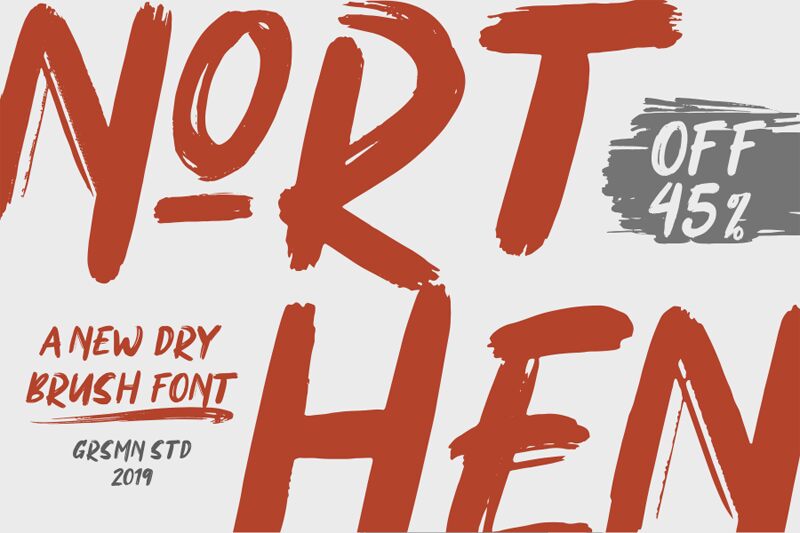
Northen is a dynamic, brush-style font that exudes a sense of energy and fluidity. Crafted by designer Risman Ginarwan, this typeface boasts a captivating interplay of thick and thin strokes, creating a bold, expressive aesthetic. Its organic, handwritten-esque quality lends an authentic, personal touch to any design, making it well-suited for a wide range of applications, from editorial layouts and packaging to signage and branding.
Northen's versatility lies in its ability to seamlessly blend the professional and the personal, making it a valuable asset for those seeking to infuse their work with a distinctive, hand-crafted flair.